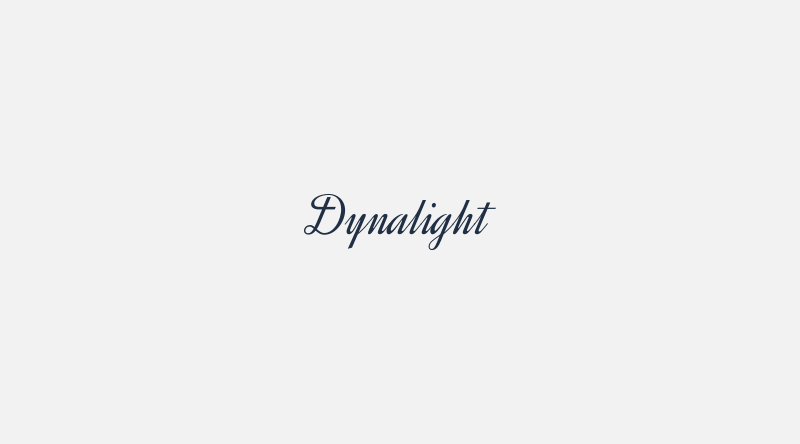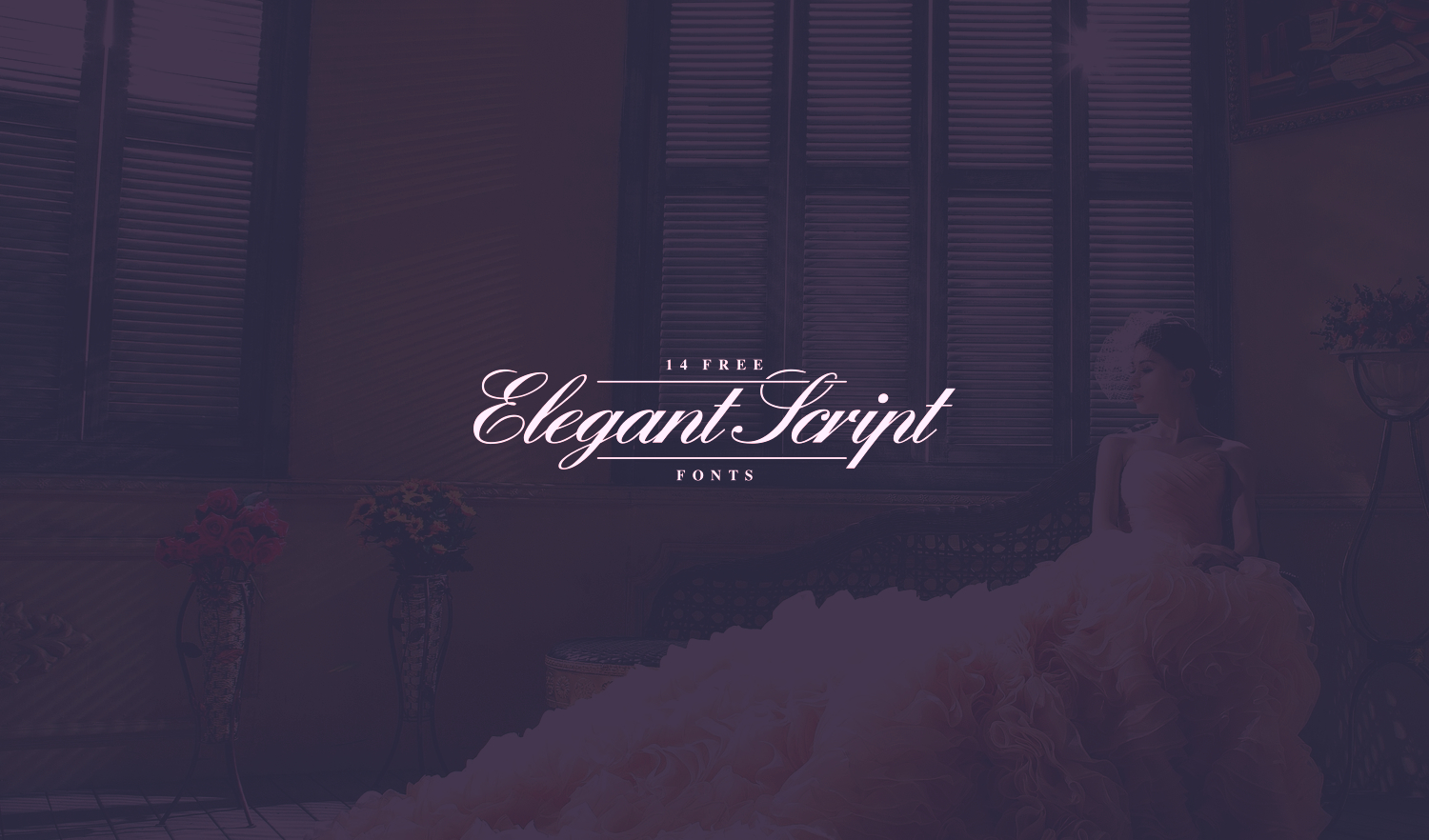
By stephanie arsenault download here. Clinton is a neutral typeface that had great clarity in its form, and ideal for wide variety of signage. 30 free best commercial use fonts for 2021 are filtered out from the list of thousands of free fonts available online, these are free so you can use them in your branding, designs and illustrations.
This font is elegant, catchy and perfect for banner, poster, print design and development projects. Free fonts for commercial use. Below are all the font links in one place.
Blooming elegant is a completely free font that you can use in your graphic designs. Don’t miss these 26 breathtaking free fonts for commercial use. Hence, clinton comes in a highly functional and flexible font.
Clinton is a neutral typeface that had great clarity in its form, and ideal for wide variety of signage. It provides both uppercase and lowercase letters, major special characters and numbers. This elegant font is great for all sorts of projects and designs.
Blooming elegant font free download. With at least a half a million fonts out there, choosing a free font for commercial use can seem like an insurmountable challenge. If you scroll down further, you can see examples of how you can use these fonts.